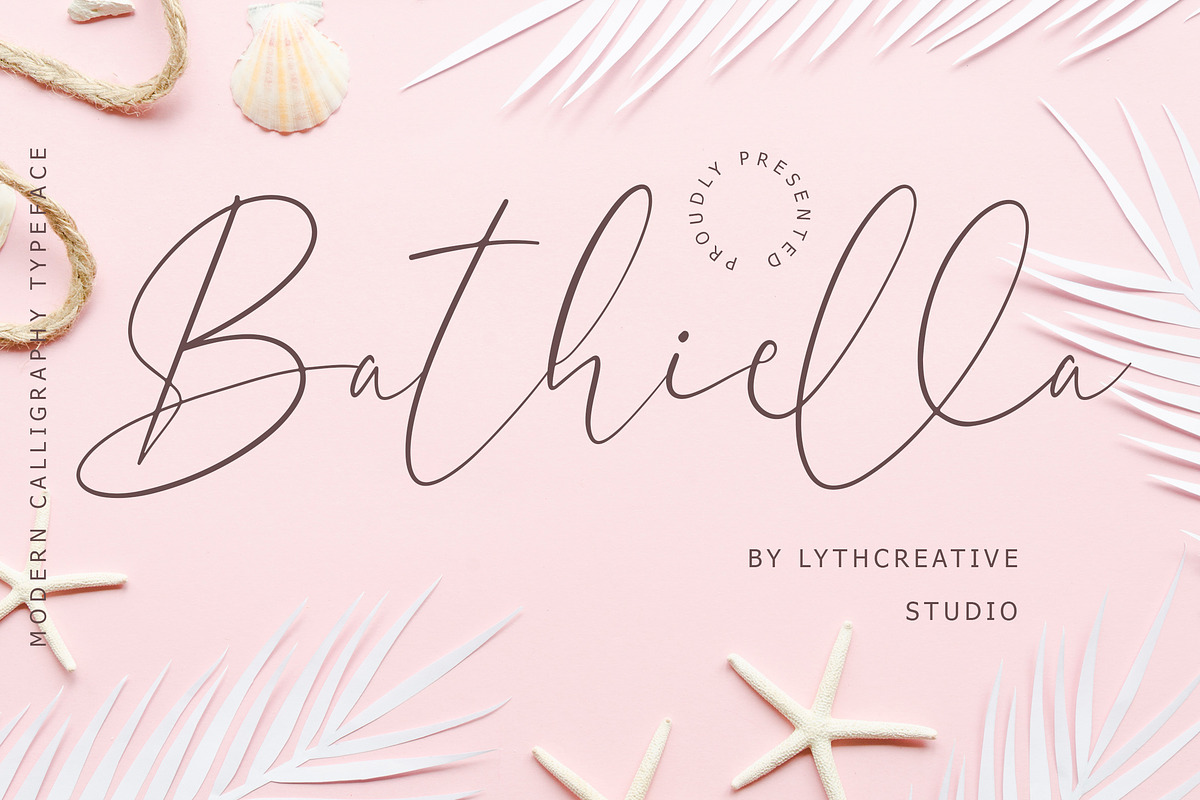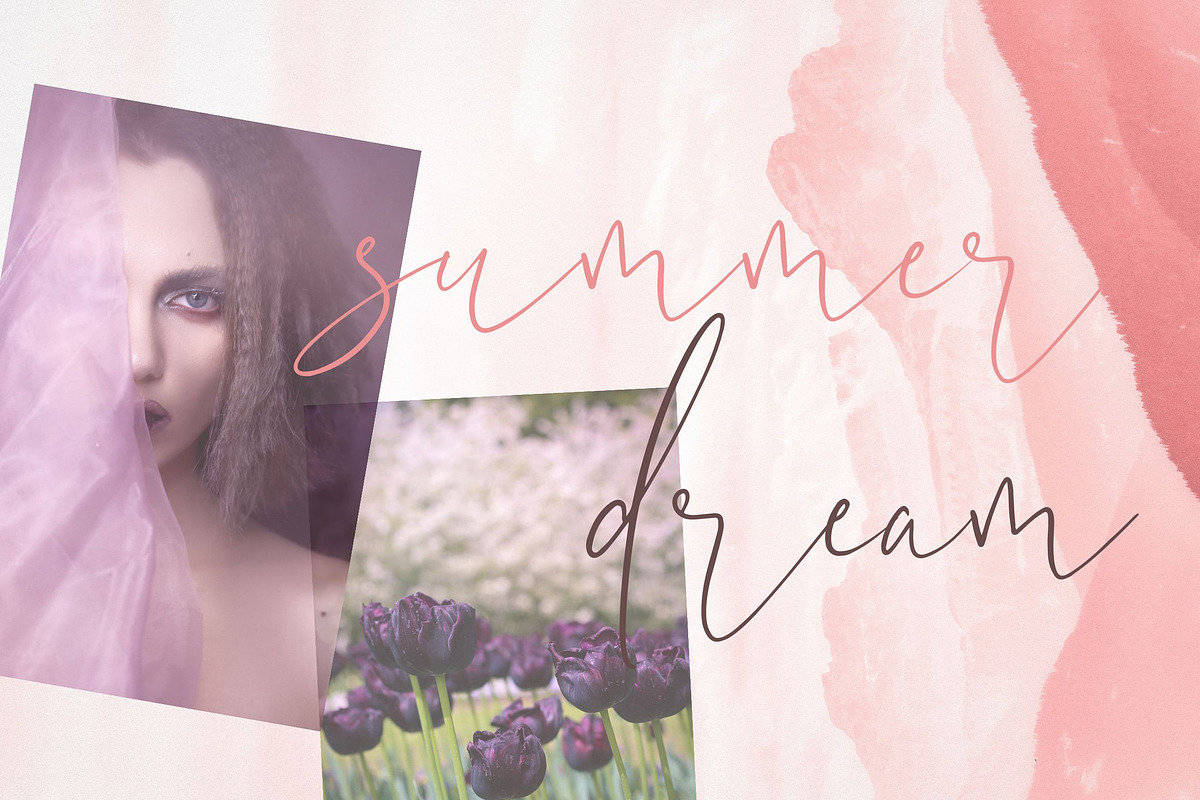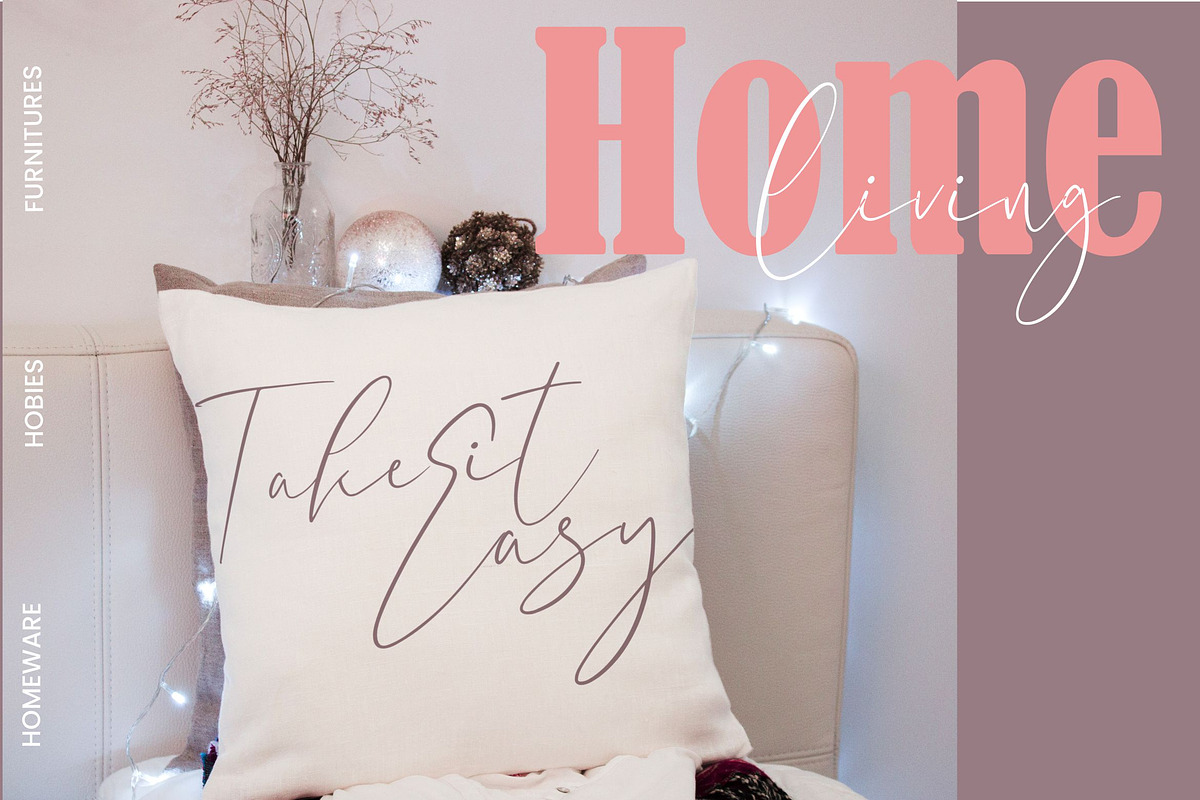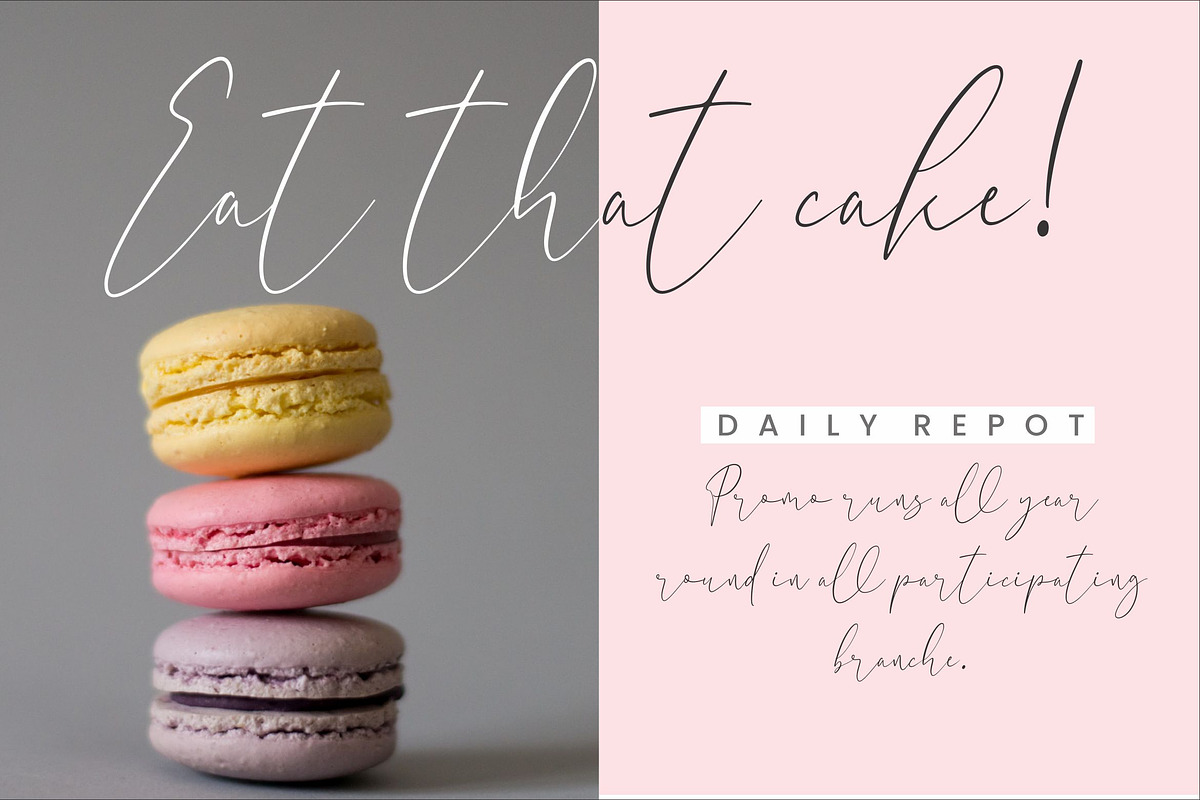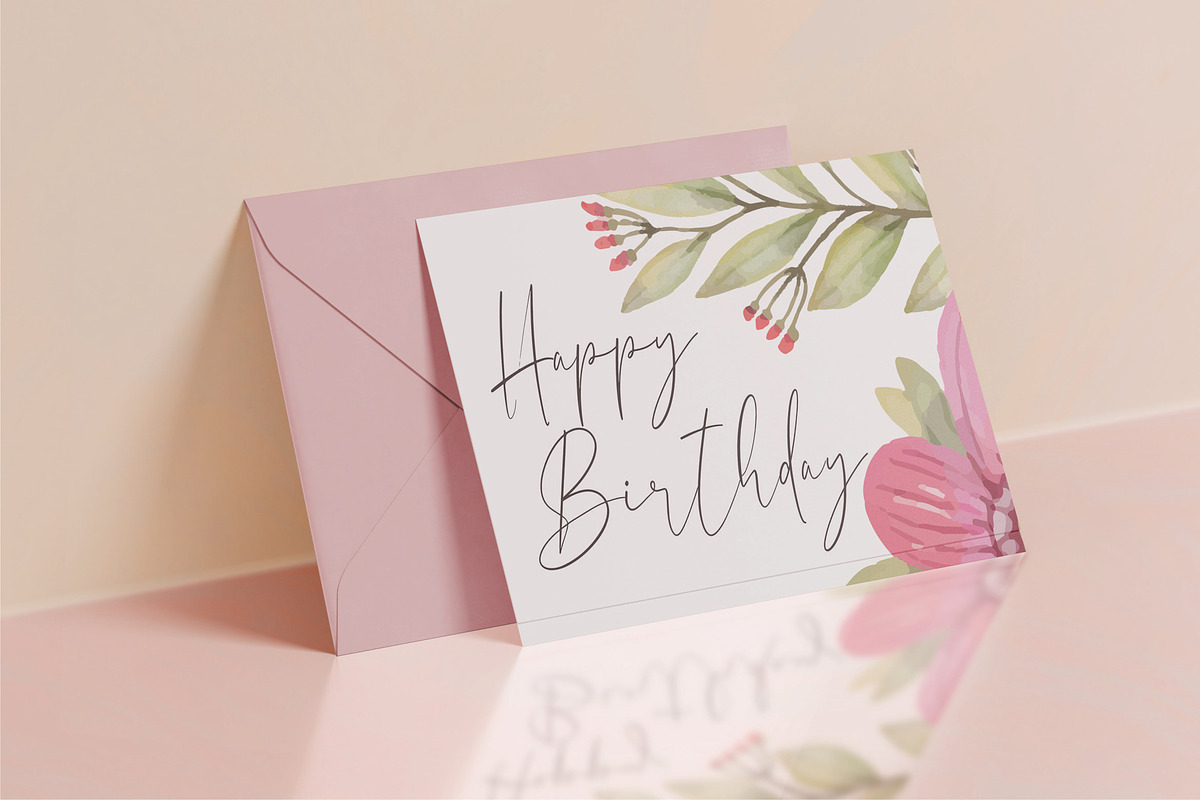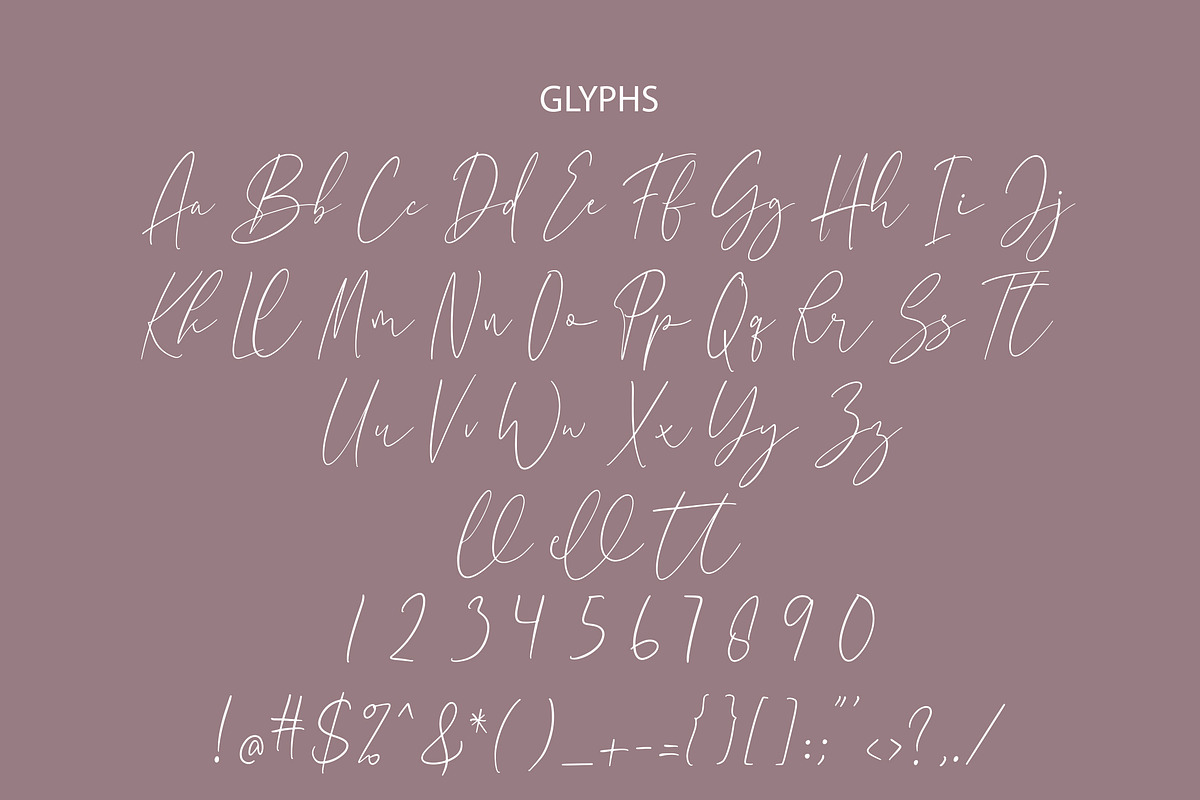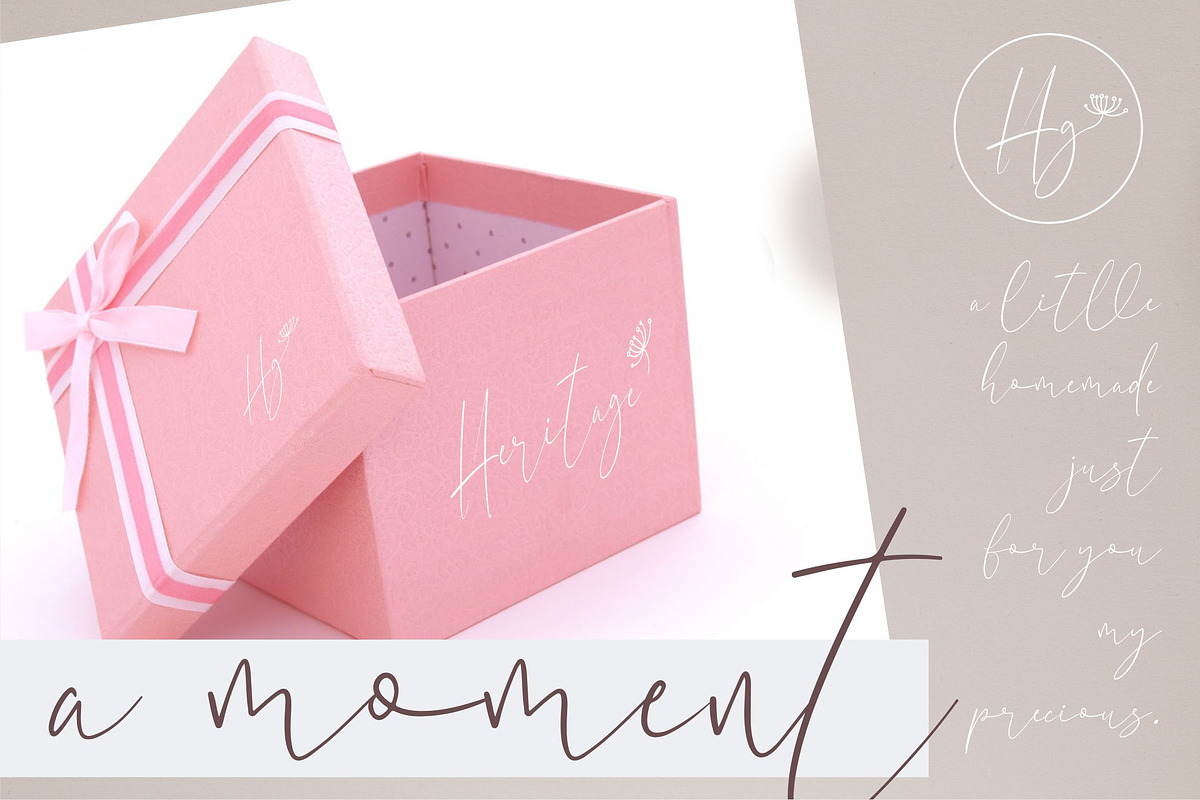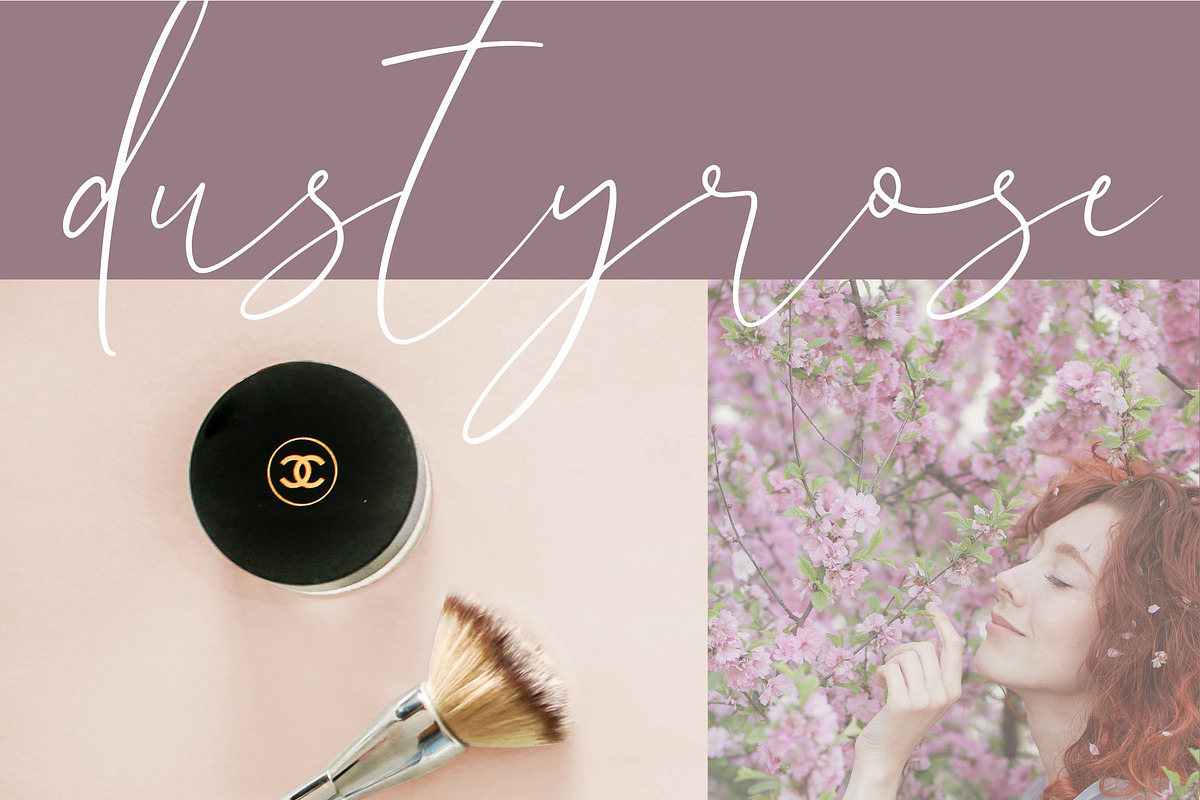
Bathiella Beautiful Font
Bathiella is a Beautiful Calligraphy Script font. This font can make your text appear elegant, luxurious, and modern!
Bathiella is perfect for branding projects, logo, wedding designs, social media posts, advertisements, product packaging, tshirt design, product designs, label, photography, watermark, invitation, stationery and any projects.